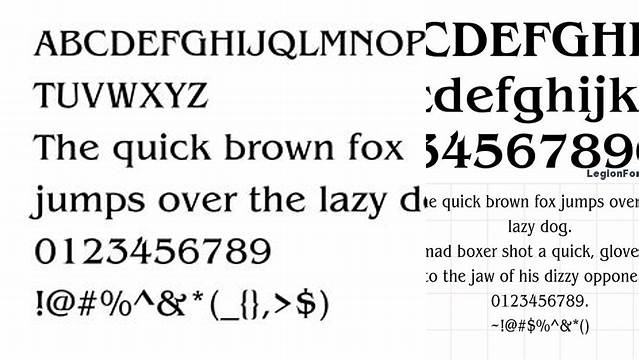
Hey guys, if you're on the hunt for a font that screams vintage cool with a touch of elegance, then you've probably stumbled upon the ITC Benguiat font. This font is a classic choice and has made its mark in the design world. In this article, we're diving deep into the world of ITC Benguiat, covering everything from its history and design to where you can snag a free download and how to use it like a pro. Let's get this show on the road!
What is ITC Benguiat Font?
First things first, what exactly is ITC Benguiat? Designed by the legendary Ed Benguiat and released by the International Typeface Corporation (ITC) in 1977, this font quickly became a favorite. It’s known for its distinctive, somewhat flamboyant, and undeniably stylish look. It's got a unique blend of elegance and a touch of the retro that makes it perfect for a variety of design projects. The typeface is categorized as a serif font. It features high contrast and a bold, eye-catching presence. You'll often find it used in headlines, posters, and any design where you want to make a statement. Think of it as the font equivalent of a classic car – timeless and always turning heads. So, if you're looking to add a touch of retro charm or a bit of sophisticated flair to your designs, then the ITC Benguiat font is a great option. The design of this font is not just about aesthetics; it's about making a statement. It is a typeface that commands attention. Its flowing curves and strong serifs give it a unique personality. And that personality has made it a popular choice for decades. This font is ideal for projects where you need a font that is both readable and visually striking. It's perfect for headlines and titles, as well as for shorter text blocks where you want to emphasize certain words or phrases.
This iconic font has a rich history and a fascinating design, making it more than just a typeface. It's a piece of design history. The font's distinct style and memorable name have made it a favorite for many designers, and it is a testament to the enduring appeal of a well-crafted typeface. The ITC Benguiat font has a unique and rich history, which makes it even more special to the world of fonts. It was designed in 1977 by Ed Benguiat, a renowned designer known for his work in creating iconic and memorable typefaces. This particular font stands out due to its bold and elegant style. It is categorized as a serif font with a distinctive design that includes high contrast and flowing curves. Benguiat designed the font to have a unique personality. It is a combination of elegance and a touch of retro charm. Its design ensures that it catches the eye and makes a strong visual statement. It quickly gained popularity and has since become a staple in graphic design. It has appeared in various applications, from book covers and movie posters to advertising campaigns. ITC Benguiat has stood the test of time. This font has become synonymous with sophistication and style. The design of the ITC Benguiat is versatile. It makes it suitable for different creative projects. Its strong serifs and bold appearance ensure that it is not just readable but also memorable. The design elements of the font make it highly recognizable. This allows the designer to give a unique touch to their work. From the elegant curves to the eye-catching boldness, every element contributes to making it stand out. The design of the font has made it a timeless choice for designers. It continues to be a popular choice for designers who want to create work that is visually impactful. It offers a balance of style and readability. Its distinctive design has left a lasting impact on graphic design, making it a classic. The design of the font is not just about aesthetics. The design is about making a statement. It showcases the designer's skill in creating typefaces that are not just visually appealing but also highly functional. It is a testament to the enduring power of good design.